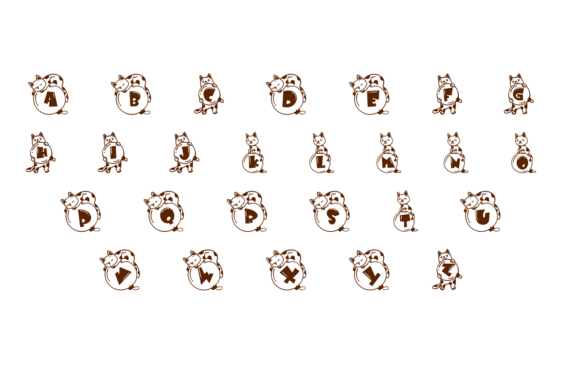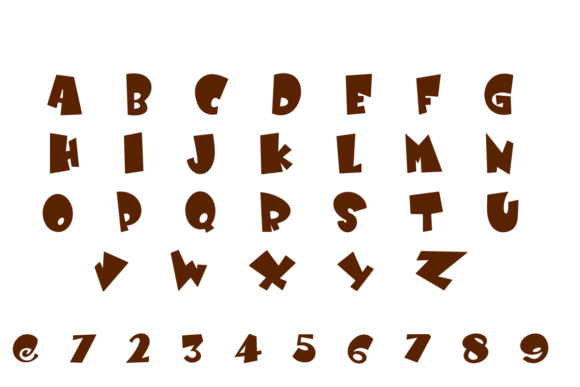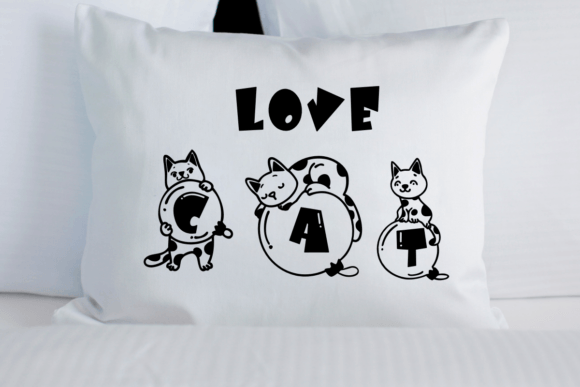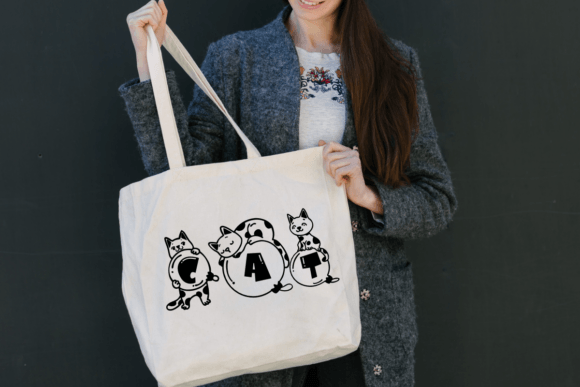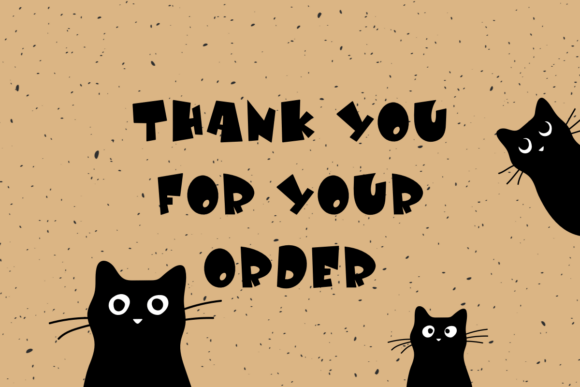
The Purrfect Font: A Deep Dive into Cat Ornaments Font
- ✨ The font’s playful, decorative style is perfect for cat-themed designs, kids’ projects, or any creative endeavor that needs a touch of whimsy.
- ✅ It’s incredibly versatile and can be used for various design projects, from notes and diaries to banners, mugs, and social media posts.
- 🎉 The font’s unique character set includes a range of ornaments and glyphs that can add an extra layer of creativity to your designs.
While the Cat Ornaments Font is a delightful addition to any design project, there are a few things to keep in mind:
- ⚠️ The font’s decorative nature might make it less suitable for body text or long-form content.
- 🤔 Some users might find the font’s quirks and ornaments a bit overwhelming at first, but trust me, you’ll get used to them quickly!
The Designer Inspiration Behind Cat Ornaments Font
The Cat Ornaments Font was inspired by the playful, curious nature of felines. The designer, a cat lover herself, wanted to create a font that captured the whimsy and charm of these beloved animals. With its curly letters and adorable ornaments, this font is sure to bring a smile to anyone’s face.
| What type of projects is Cat Ornaments Font best suited for? | Cat Ornaments Font is perfect for decorative projects, such as greeting cards, invitations, and social media posts. It’s also great for kids’ projects, notes, and diaries. |